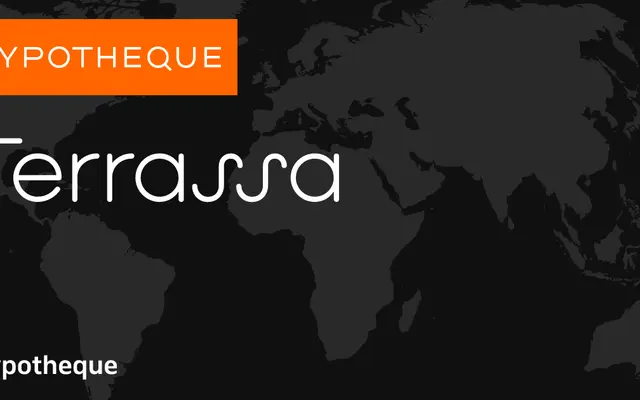
Terrassa
A geometric sans system built around a weight calculator that maintains consistent stroke widths relative to point size, distributed across named styles tied to world cities.
Terrassa organises its weights not by conventional naming conventions alone but through a mathematically linked system where stroke width stays optically consistent as point size changes, allowing precise cross-size typesetting. Styles are named after cities from Amsterdam to Luxembourg, spanning Hairline to Medium and including Tight width variants alongside standard. Three subfamilies extend the system: Terrassa for text, Terrassa Display for large settings and Terrassa Gradient for decorative or experimental use.
Terrassa is a geometric sans-serif with an unusual optical-size weighting system where stroke width is calibrated to point size rather than conventional weight steps. The Tight and standard widths, plus Display and Gradient subfamilies, confirm a broad-ranging geometric sans system.